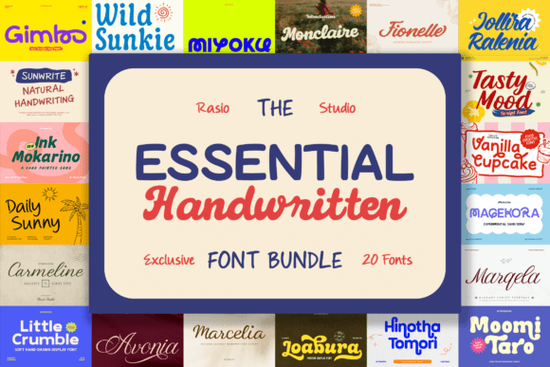
The Essential Handwritten Font Bundle is one of those collections that quietly solves a common design problem: you need fonts that feel personal and warm, but you don't want to spend hours searching for the right one. This bundle brings together 20 handwritten fonts in different styles from casual lettering to sweet scripts to bold hand-drawn type all in one download. If you work on branding, packaging, stickers, or social media graphics, having this kind of variety on hand saves real time.
What's actually included in this font bundle?
This collection covers a wide range of handwritten styles. You get playful display fonts, flowing script fonts, relaxed casual lettering, and chunky hand-drawn typography. Each font carries a friendly, organic character the kind that makes a design feel human rather than corporate.
If you've ever browsed through a large font bundle collection looking for something with personality, you know how useful it is to have multiple handwritten styles ready to go.
Who is this bundle a good fit for?
This collection works especially well for people who run food brands, bakeries, children's product lines, or handmade businesses. The warm, approachable style of these fonts matches the tone these brands usually want to communicate something friendly, genuine, and inviting.
Lifestyle bloggers and content creators also benefit from handwritten fonts. They bring a personal touch to quote graphics, Pinterest pins, and story templates that standard fonts just can't replicate.
For print-on-demand sellers, having multiple handwritten styles means you can create varied designs without reusing the same font over and over. That variety helps your shop look more polished and original.
How does it compare to other font styles?
Handwritten fonts fill a specific role in a designer's toolkit. While a clean sans-serif like Poris works beautifully for modern, minimal layouts, and a display font like Biggie Stencil makes a strong visual impact, handwritten fonts bring warmth and emotion. They're the right choice when a design needs to feel approachable rather than authoritative.
That said, most designers use a mix of font styles together. Pairing one of these handwritten fonts with a simple sans-serif or even a decorative option like Beloved Botanical creates nice contrast and visual balance.
Are these fonts easy to use for beginners?
When would you choose this over a single font?
Buying a bundle makes more sense when you work on multiple projects or need variety within the same design style. A bakery brand, for example, might use one script font for the logo, a casual handwritten font for menu boards, and a playful display font for social media. Having 20 options in one download means you can experiment without extra cost.